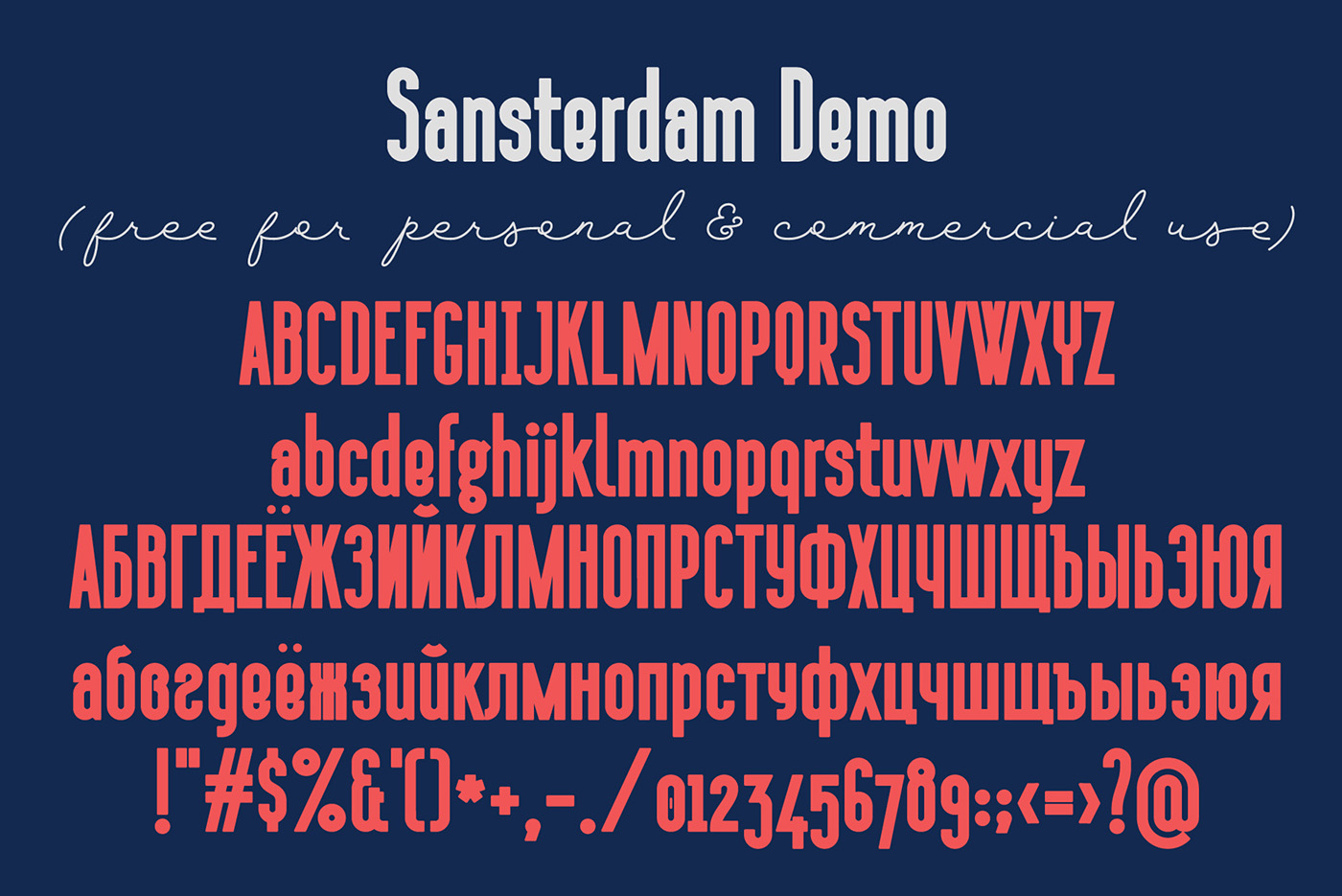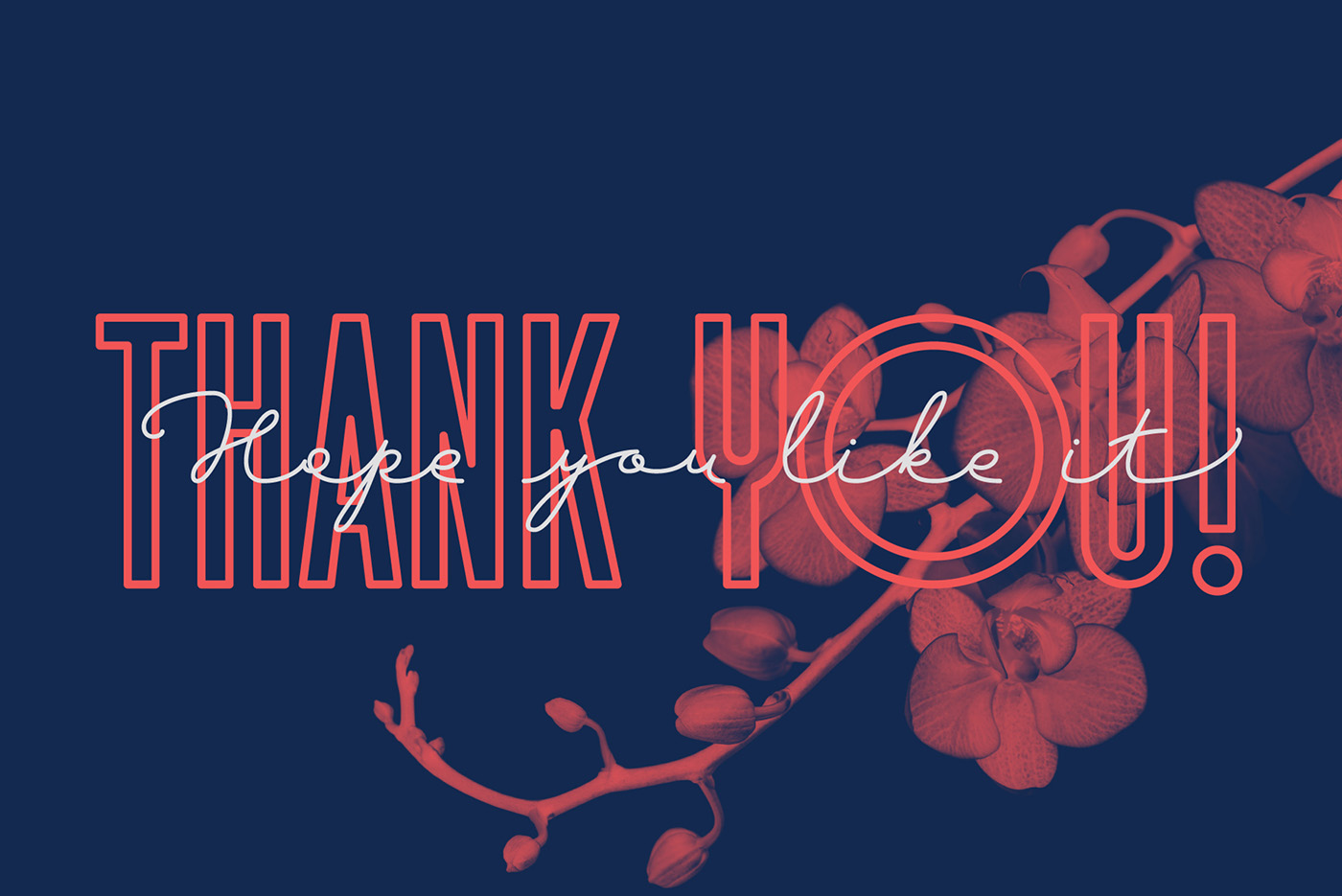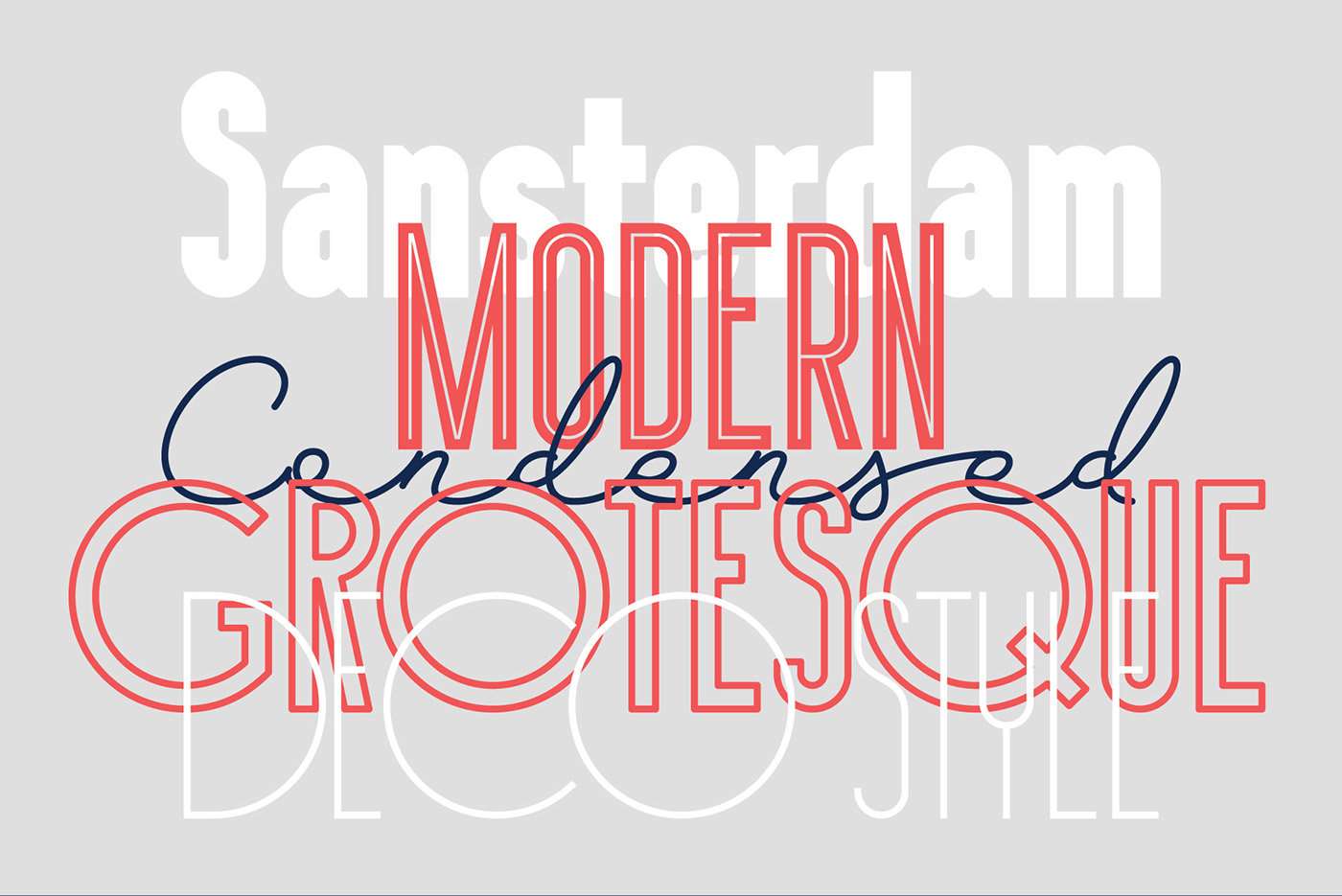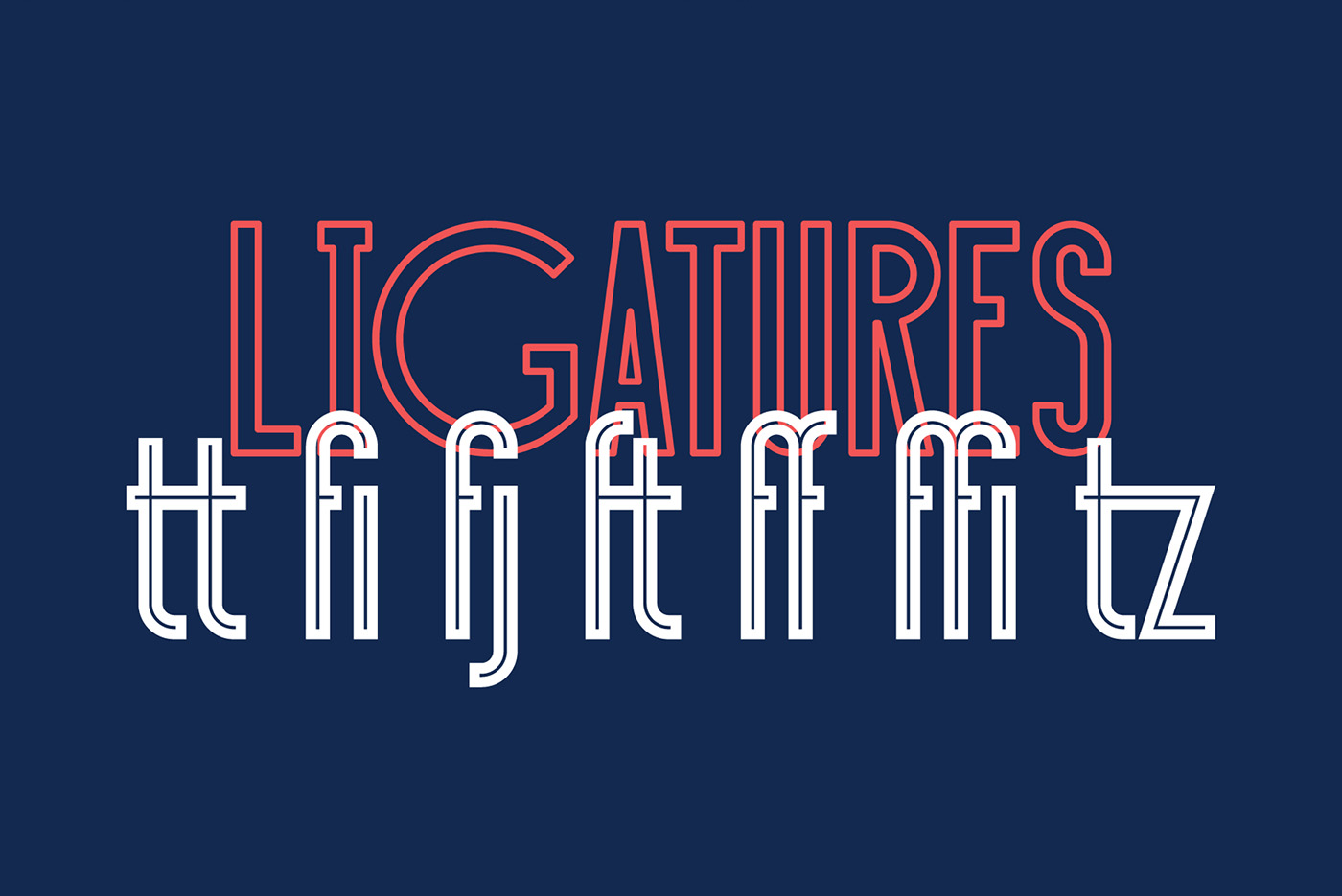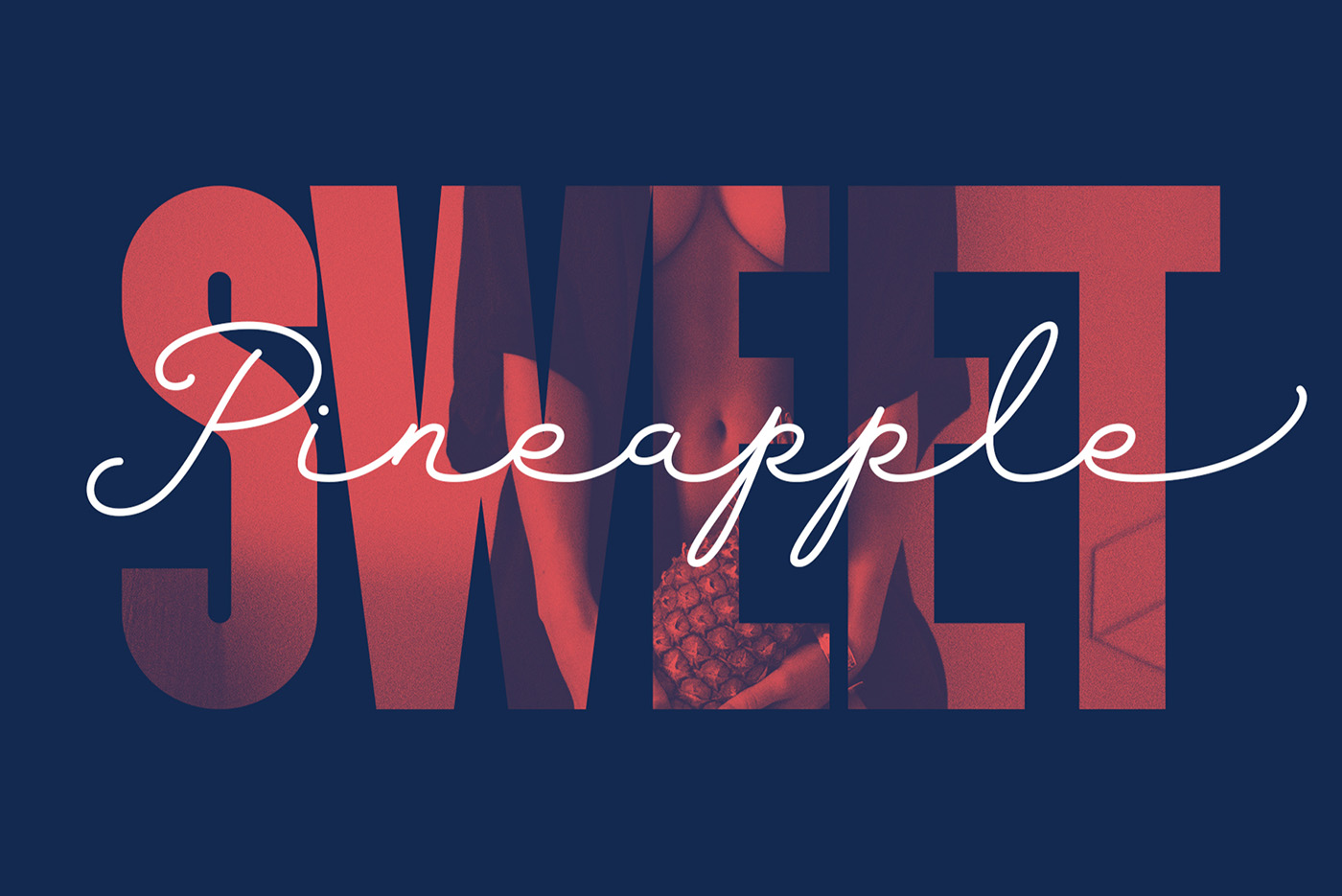
Sansterdam is a modern geometric condensed grotesque font family created by NREY. It’s perfect for everything from posters to logos to book covers! Download the free version beneath the previews and check the pro version here. Free for personal and commercial use!